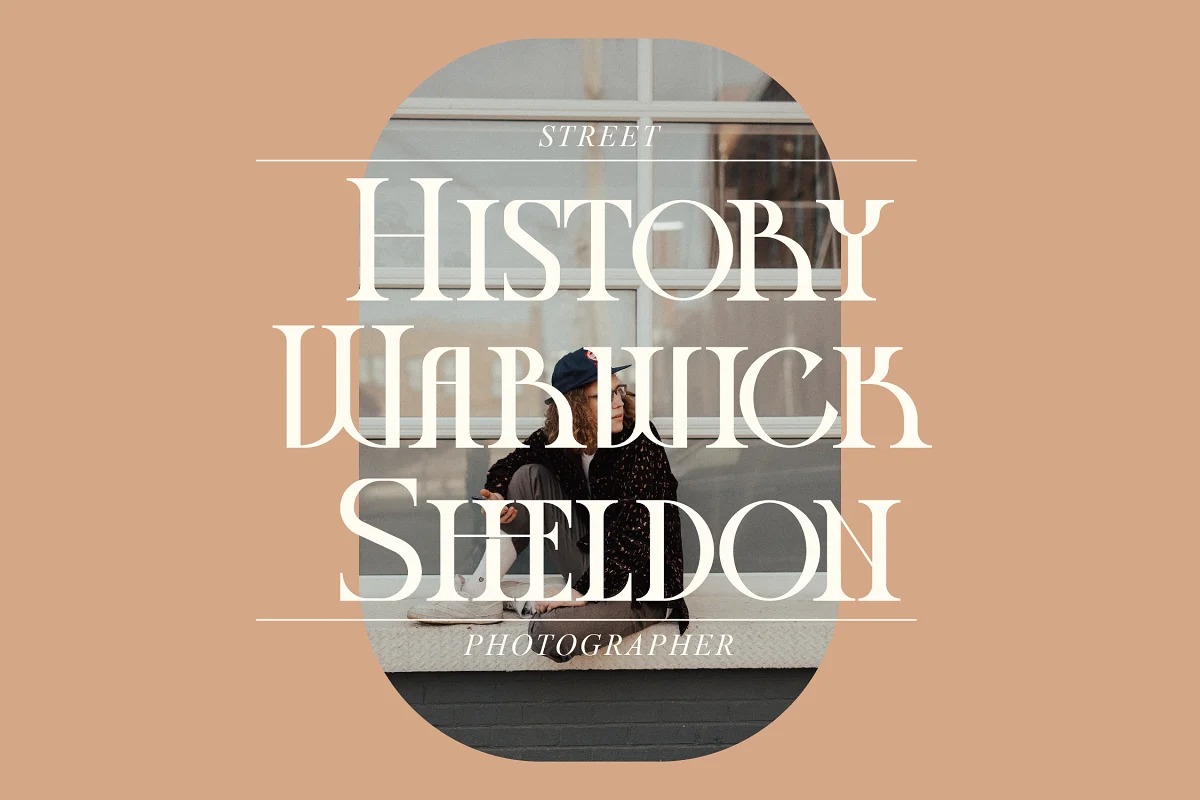
Display Magazine Serif Font
This font is a modern serif with vintage charm, fashionable appearance with a touch of retro. Made from font designer named Storytype Studio. This typeface is perfect for an elegant & luxury logo, book or movie title design, fashion brand, magazine, clothes, lettering, quotes, and so much more.